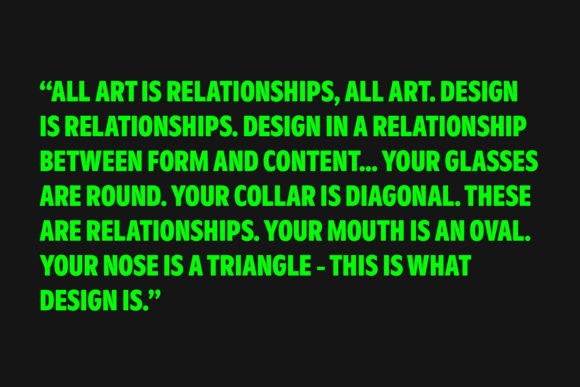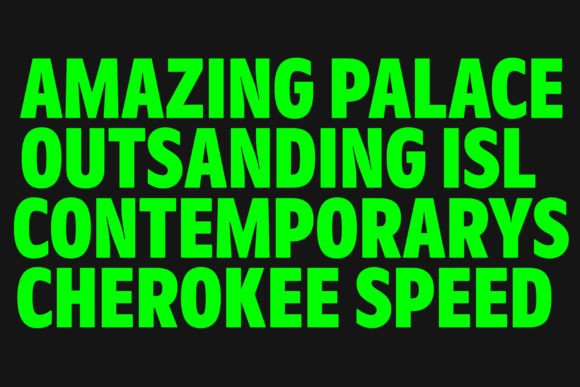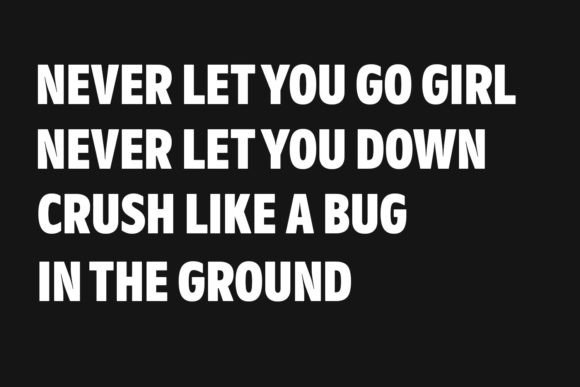
Introduction to Goshco Font
Strong, modern, and authentic, Goshco will bring a special and trendy vibe to each of your projects.
Why Choose Goshco Font?
Goshco Font offers exceptional quality and versatility, making it a valuable addition to your design toolkit. Whether you’re creating for personal projects or commercial use, Goshco Font delivers professional results.